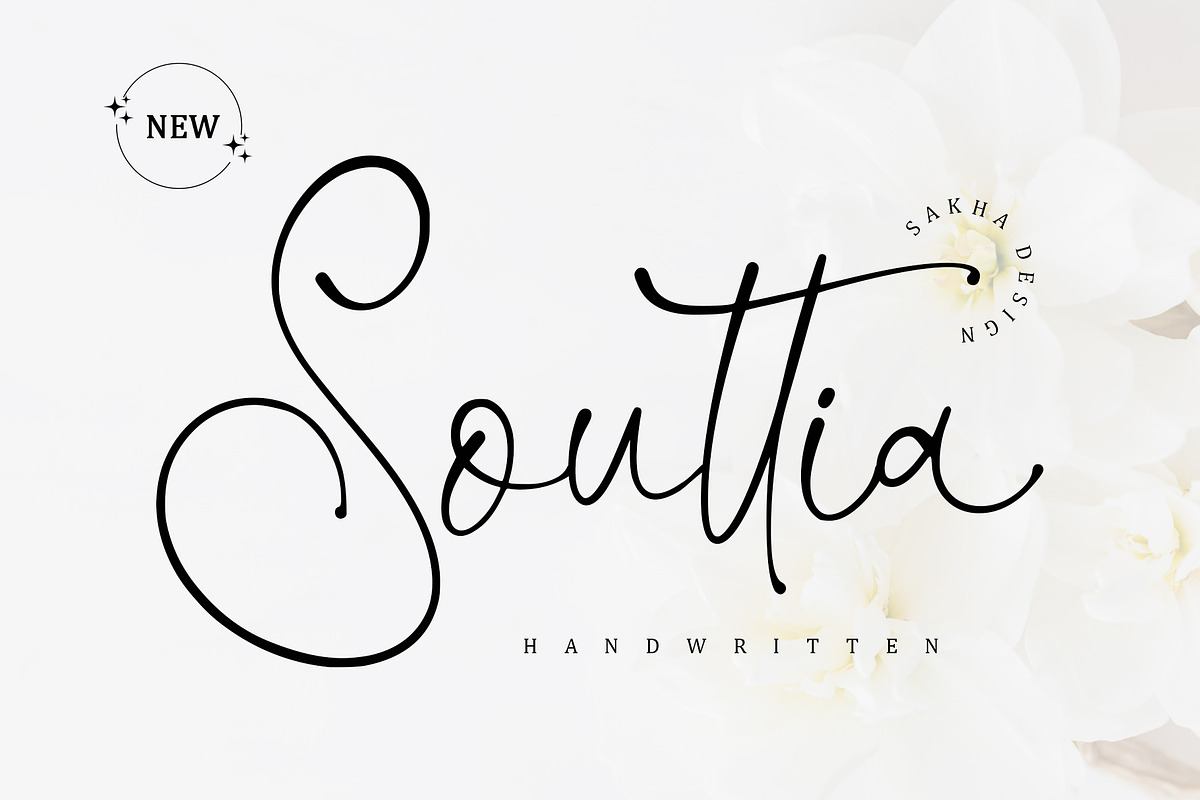
Add a personal, heartfelt vibe to your designs with Souttia Handwritten Font Free Download — a soft and elegant script font that mimics natural handwriting with a stylish twist. Perfect for lifestyle branding, invitations, greeting cards, blog headers, and creative content, Souttia brings warmth and authenticity to every word.
With flowing strokes and smooth curves, this font captures the beauty of handwritten notes and the charm of simplicity. It includes uppercase and lowercase letters, punctuation, numerals, and multilingual support — offering full versatility for designers who value personality and clarity.